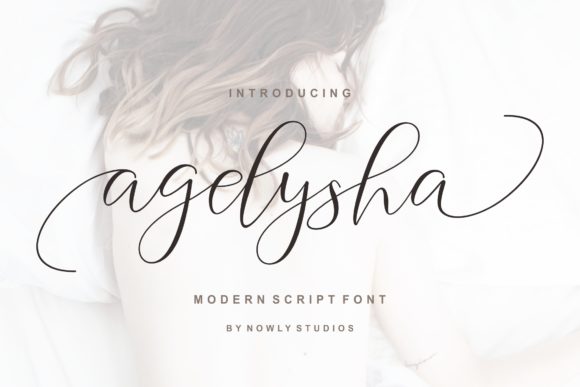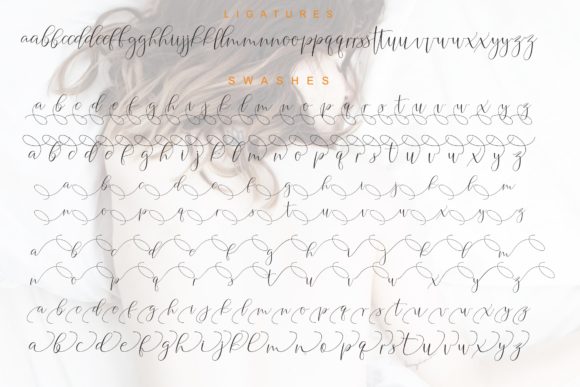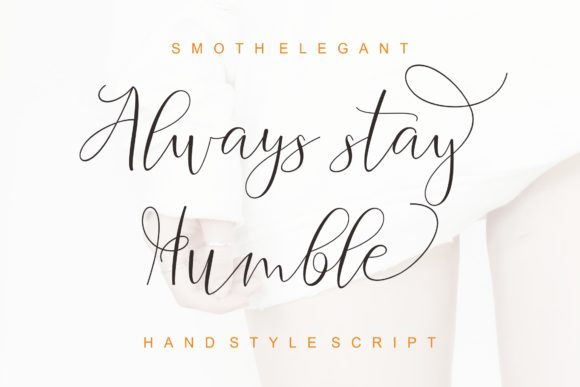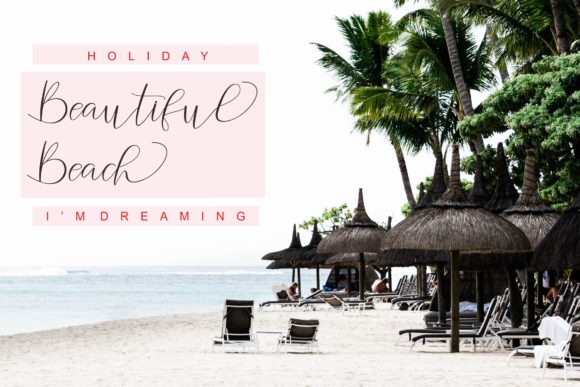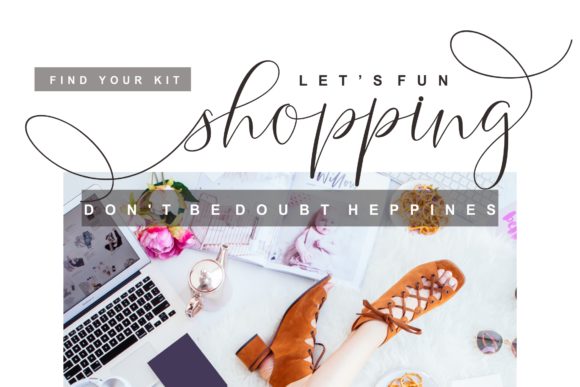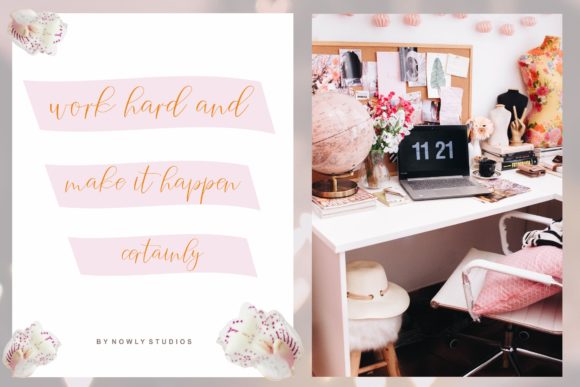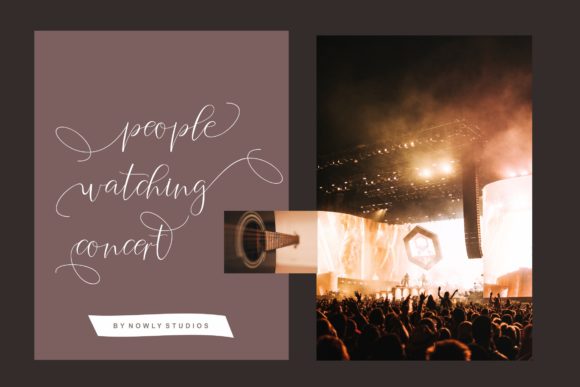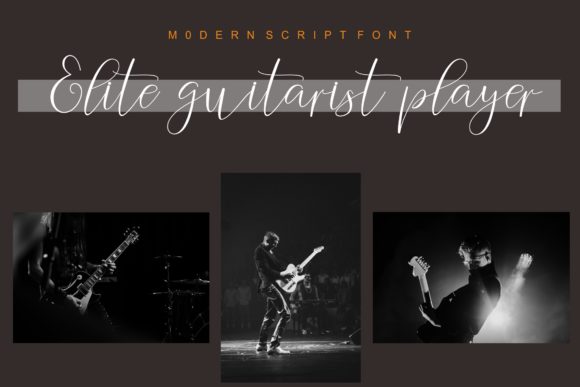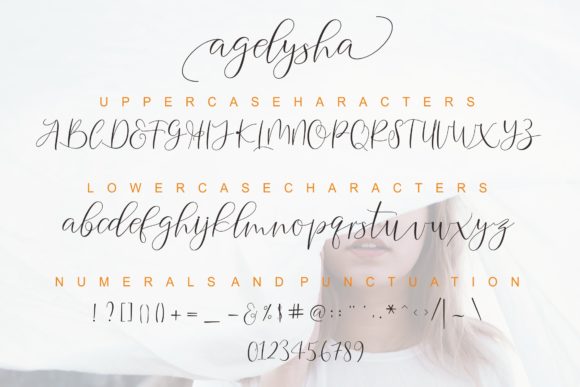
Agelysha Script Font
About Agelysha Script Font
Introducing The Agelysha, an elegant script font that exudes sophistication and style. This font is more than just a typeface; it’s a design asset that elevates your projects with its refined and graceful appearance. The Agelysha also features attractive alternates, providing you with the tools to create a truly unique and distinctive design.
The elegant script style of The Agelysha makes it well-suited for a variety of applications, including invitations, branding, packaging, headlines, and more. Its graceful strokes and well-crafted letterforms add a touch of luxury to your designs.
What sets The Agelysha apart is its attractive alternates, allowing you to customize and create a design that stands out. Whether you’re looking to add a unique flair to your branding, headlines, or any other project, these alternates provide versatility and creative possibilities.
In invitations, The Agelysha brings an air of sophistication, setting the tone for elegant events. In branding, its graceful script adds a touch of class to your visual identity. The alternates enhance its adaptability, making it suitable for a range of creative expressions.
In summary, The Agelysha is more than just an elegant script font; it’s a design companion that provides both grace and versatility. Embrace its attractive alternates to craft a design that is uniquely yours, whether it’s for invitations, branding, packaging, or any project that requires a touch of refined elegance.